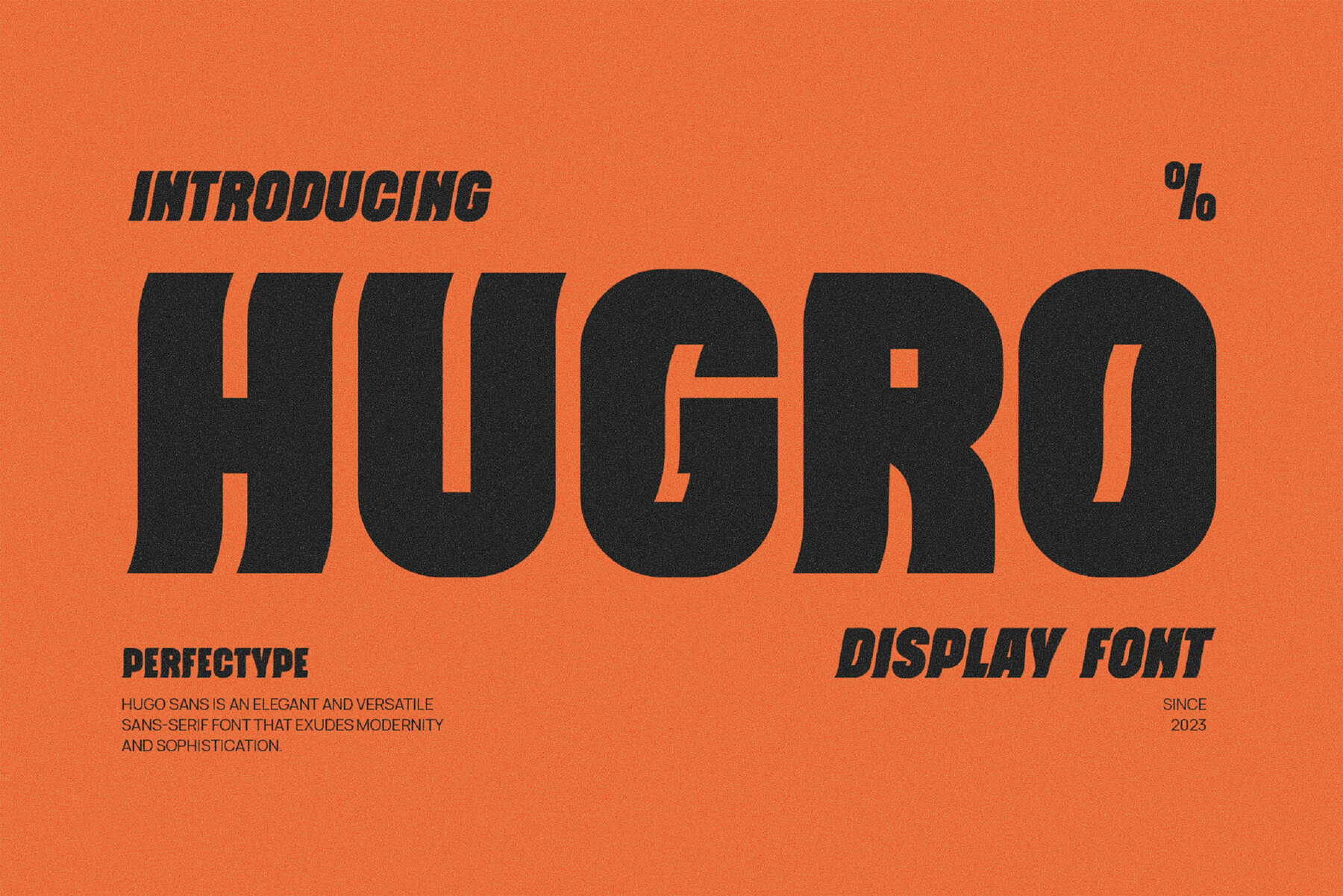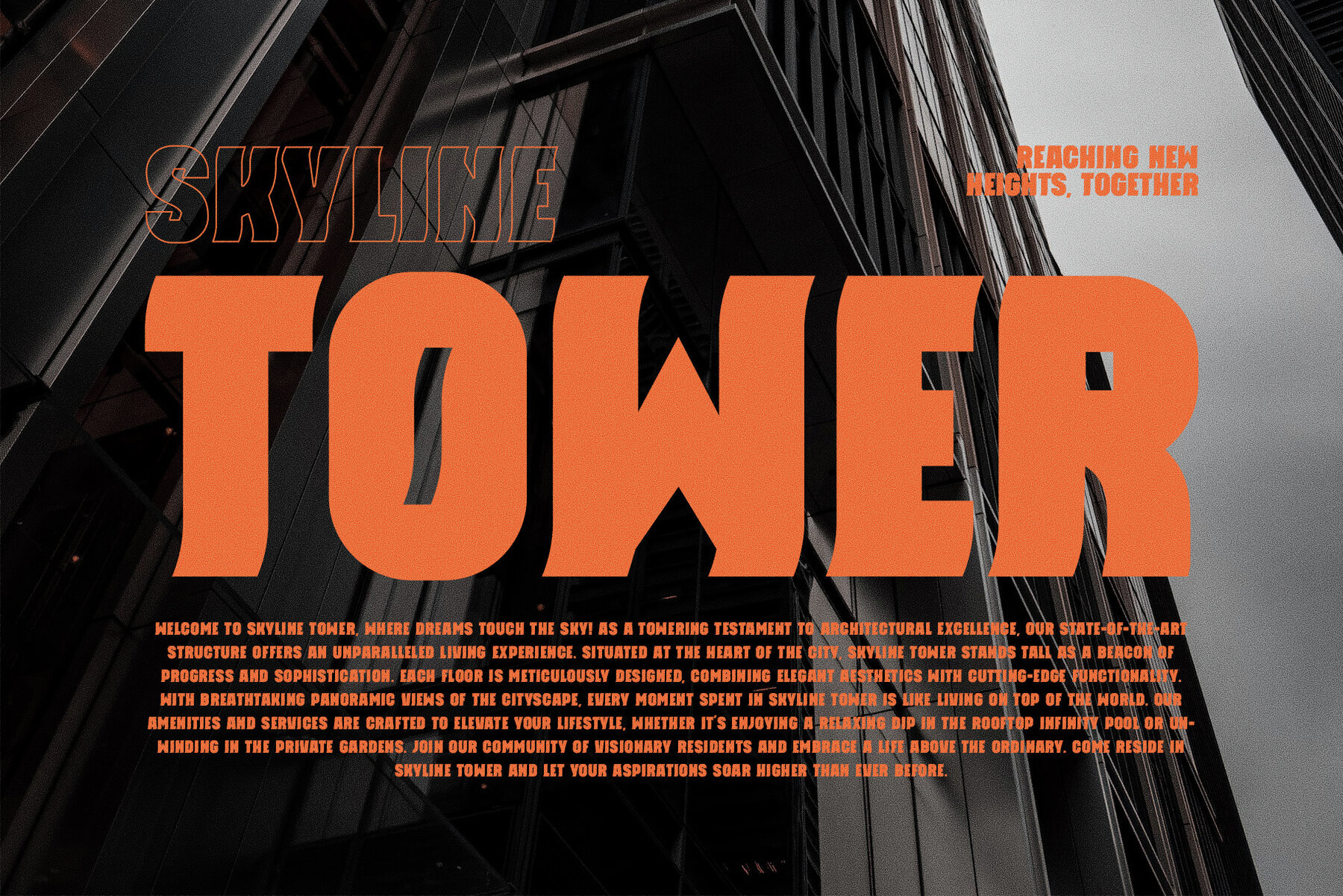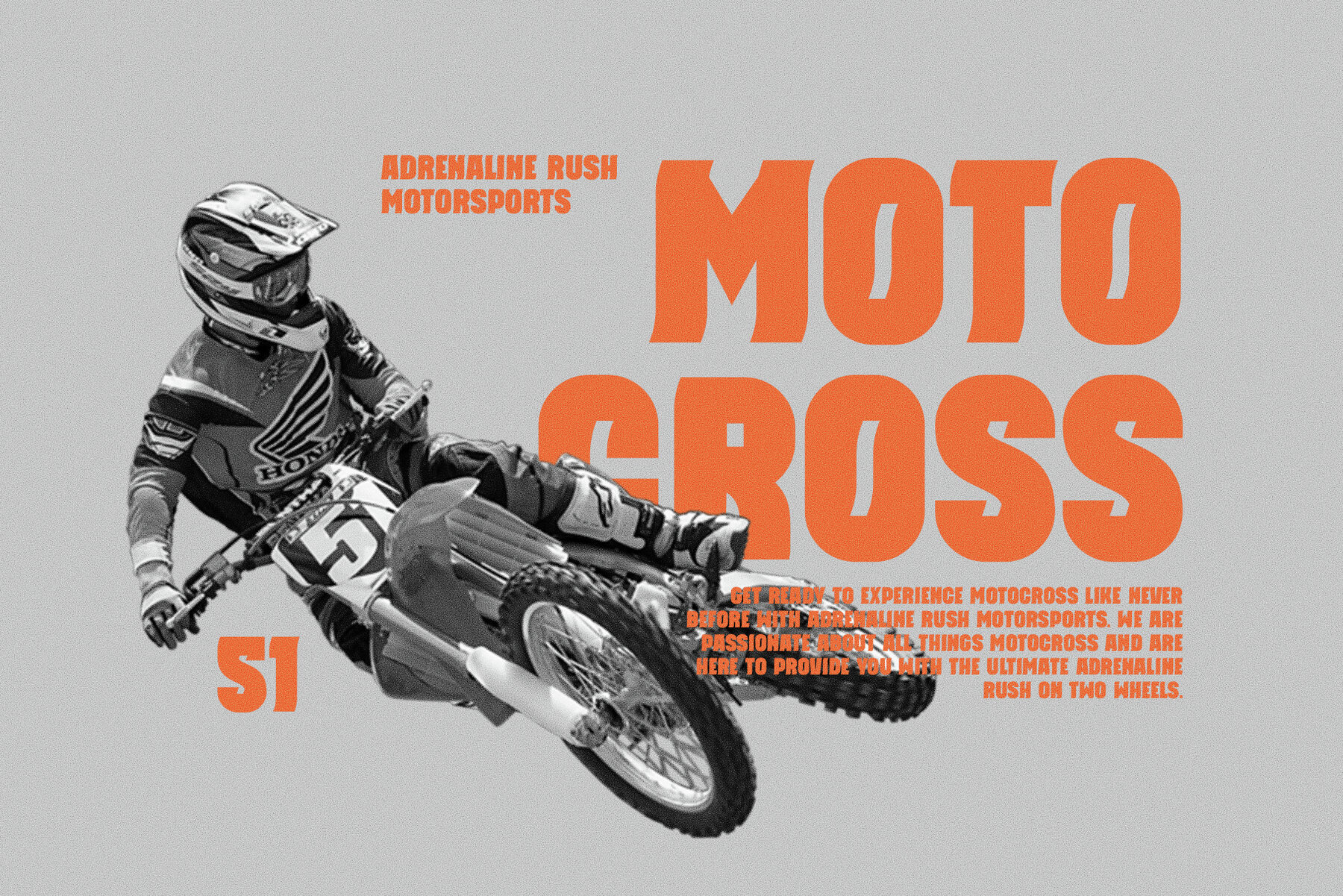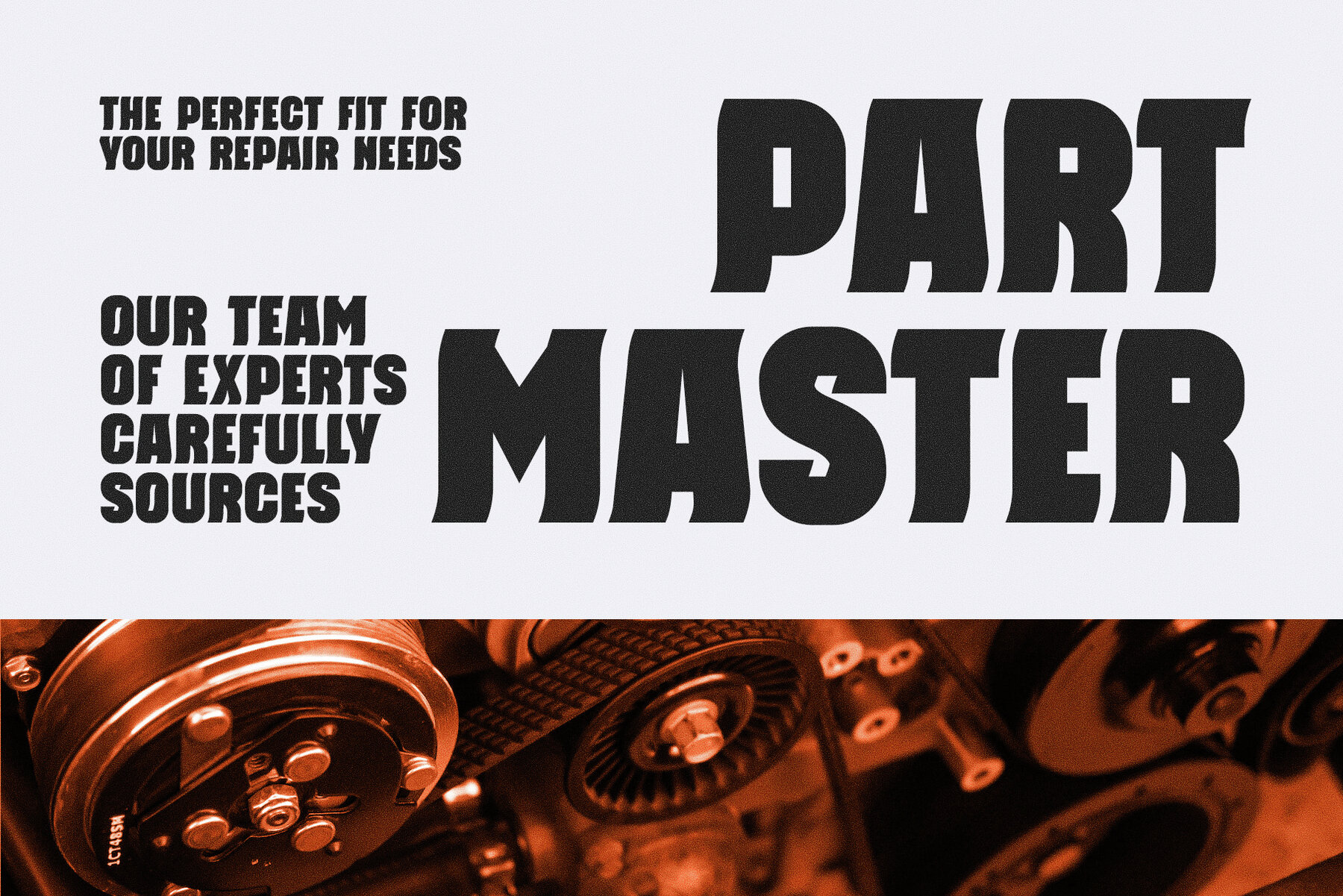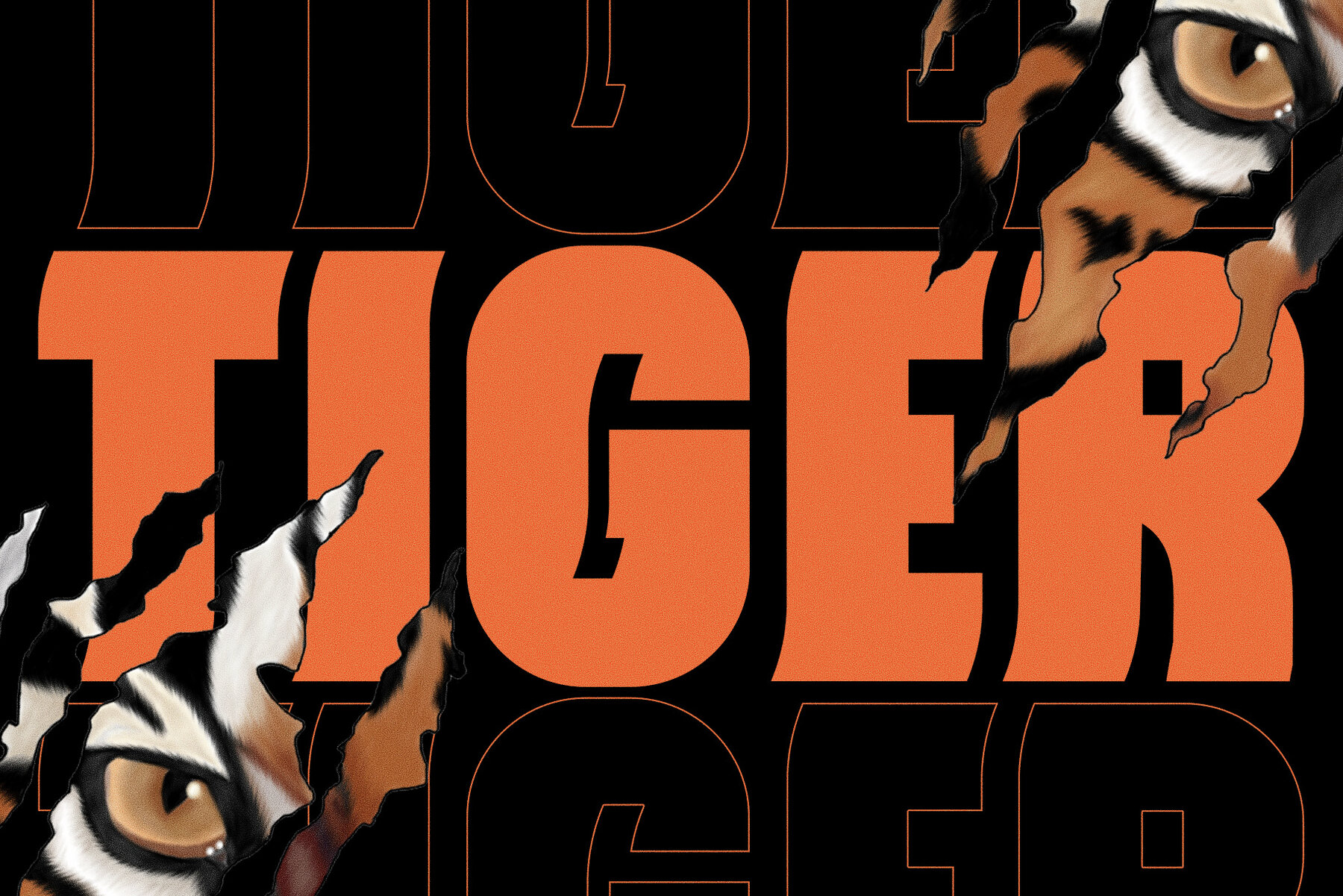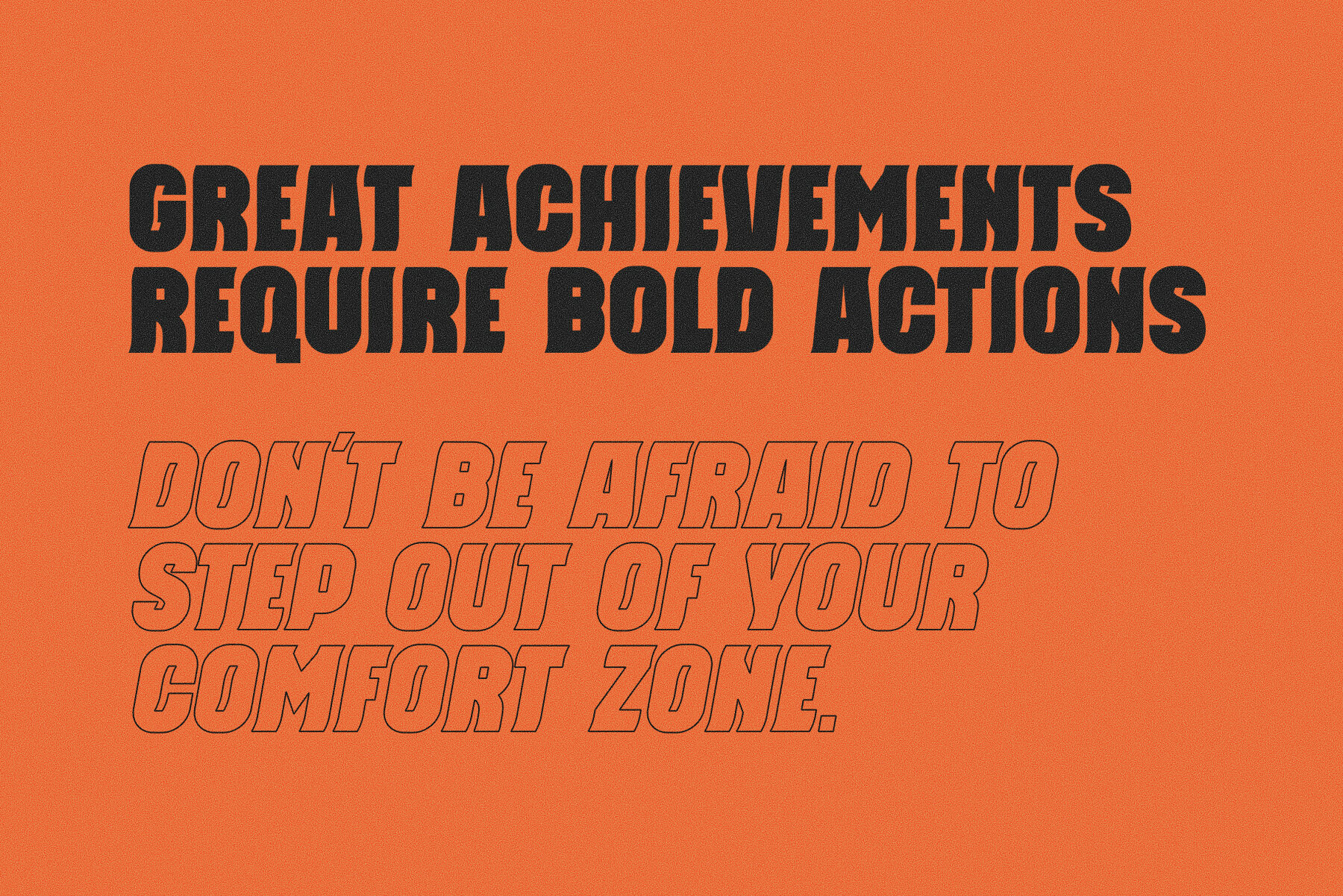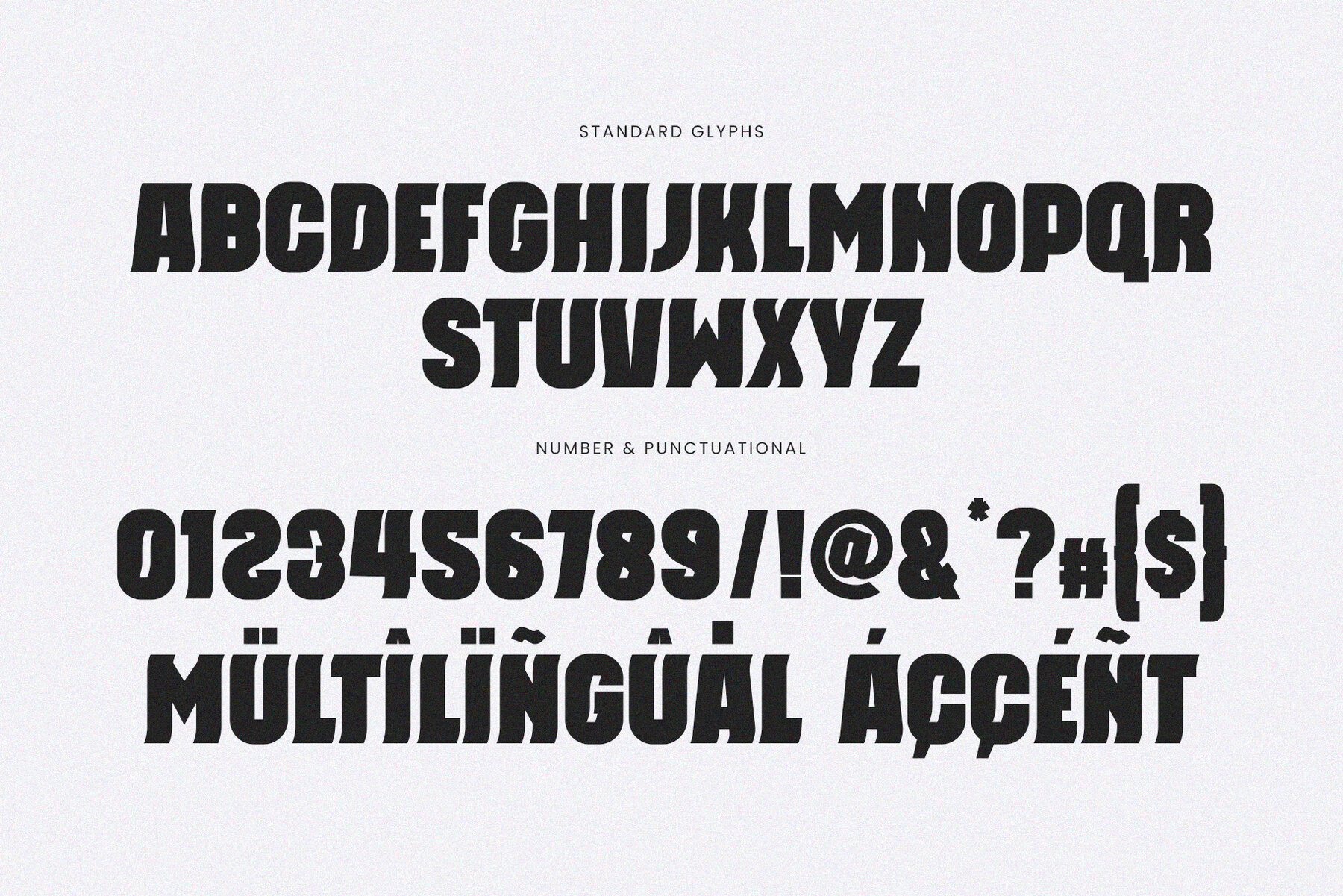
Hugro Font
Hugro Regular
This typeface encapsulates a rhythm that is symmetrical and balanced due to a unique mix of different sources of inspiration. Proportions are precisely adjusted with subtle contours and subtle contrasts. These shapes give the font an attractive look without compromising on elegance and minimalism, ensuring that any glyph will work well in any graphic design purpose such as brochures, videos, advertising branding, logos, magazines, layout designs, posters, post templates, games and others What's Included: - Recommended using Adobe Illustrator or Adobe Photoshop.